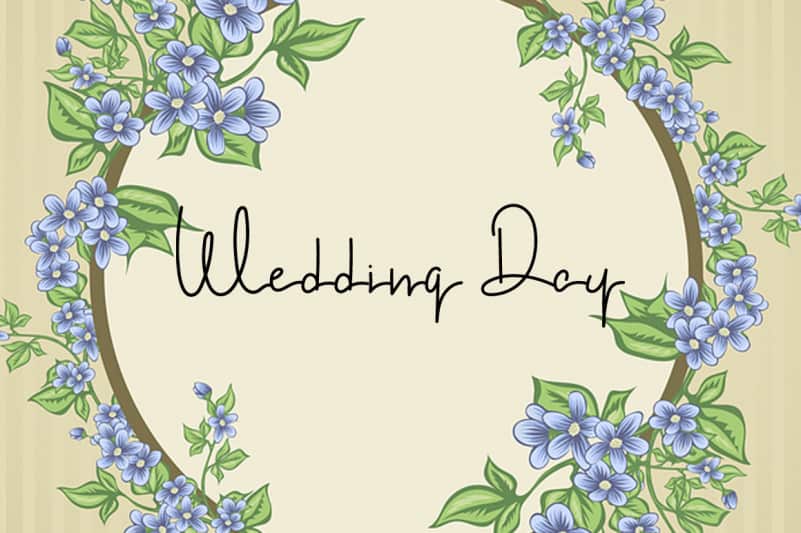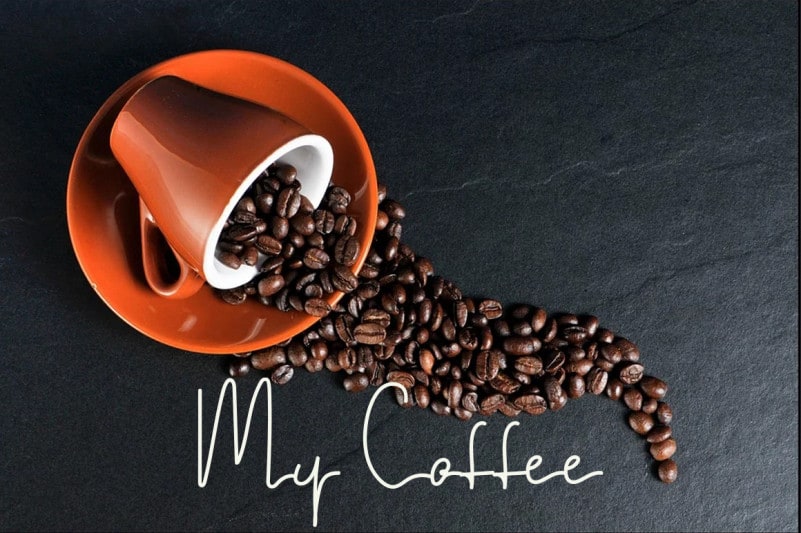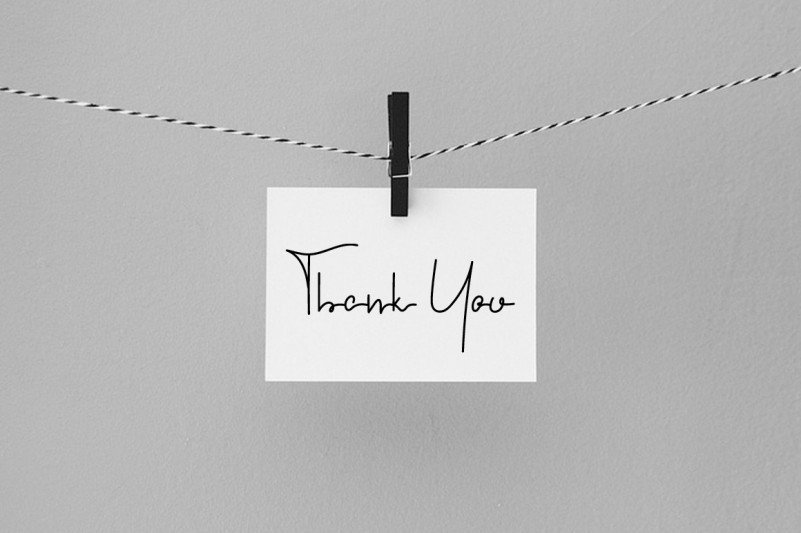
Among Us Font
Among Us Font is a simple, thin and sweet handwritten font. Incredibly versatile, this font fits a wide pool of designs, elevating them to the highest levels.
Latest letters that can be used for various products, invitations, wall hangings, weddings, and more.
levincreative